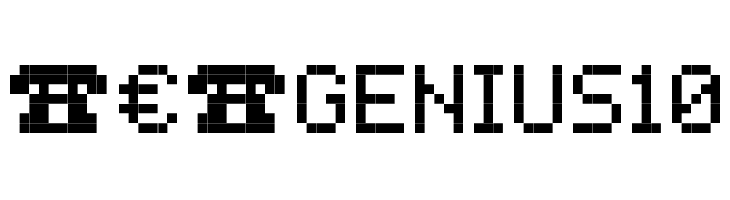
A pixelated, retro-style font with a digital, grid-like appearance.
A pixelated, retro-style font inspired by early digital displays.
A pixelated, geometric font with a condensed, retro digital style.
A pixelated, blocky font with a retro digital aesthetic.
A bold, pixelated font with a retro, digital aesthetic.